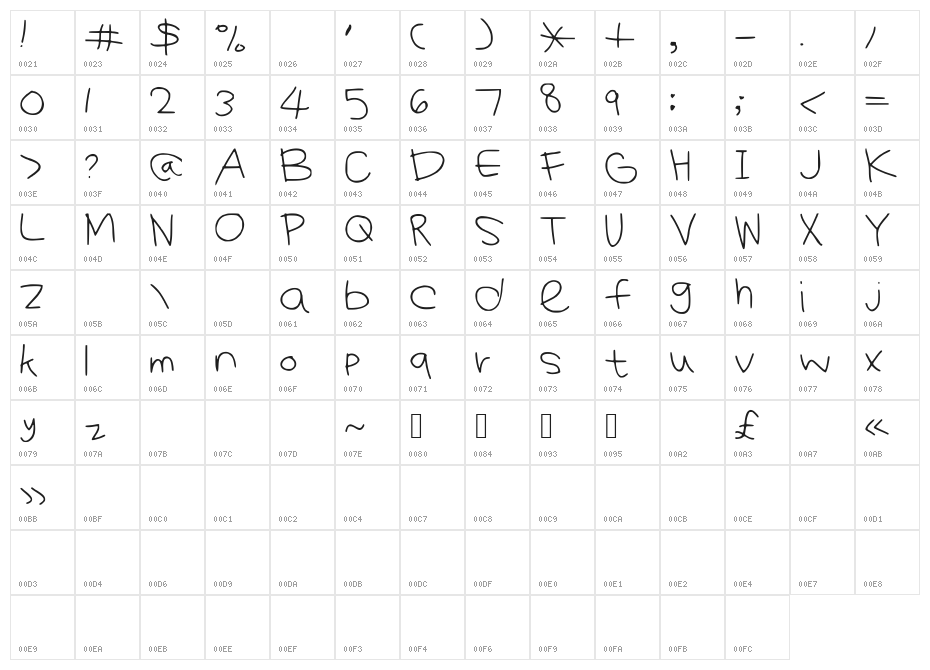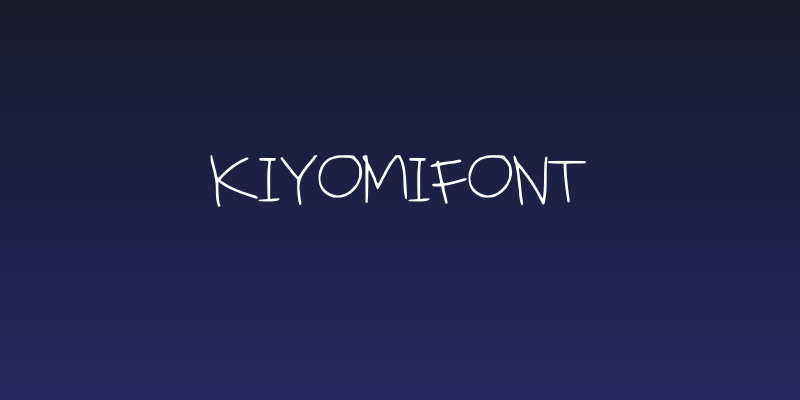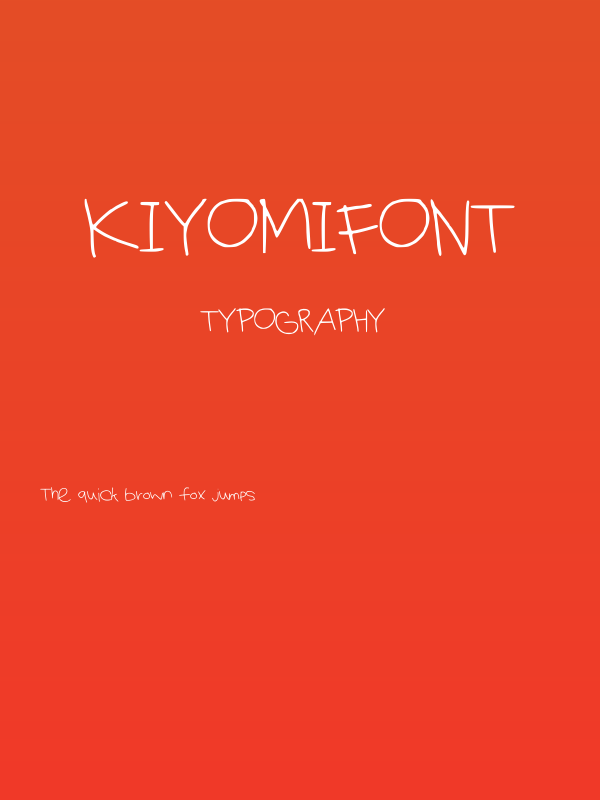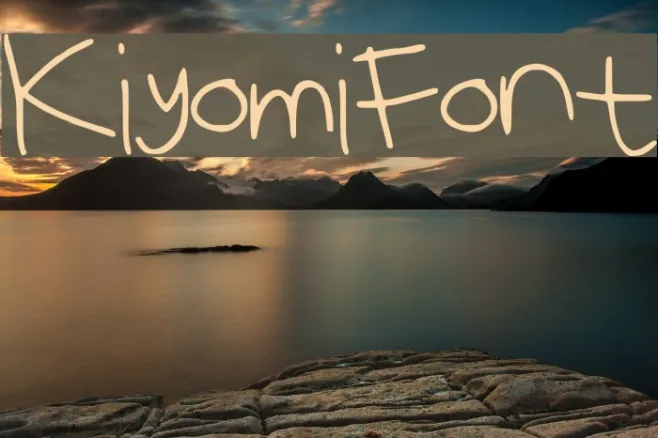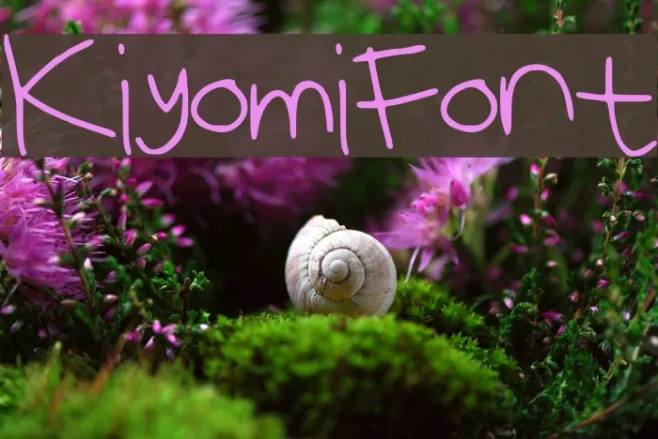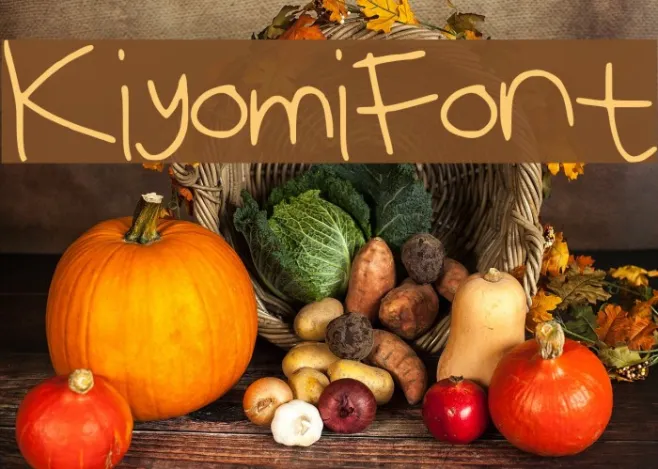
KiyomiFont Font
KiyomiFont Description
This font features a playful and casual handwritten style, characterized by its smooth, flowing lines and slightly irregular shapes. The letters have a consistent stroke width, giving it a uniform appearance despite the informal style. The uppercase and lowercase letters are well-proportioned, maintaining readability while adding a touch of whimsy. The numerals and special characters follow the same design principles, ensuring a cohesive look across all characters. This font is ideal for projects that require a personal, friendly touch, such as greeting cards, invitations, or social media graphics.
| Use Case | Headlines, Informal text, Personal projects |
| Proposed Projects | Greeting cards, invitations, social media graphics, children's books, personal branding. |